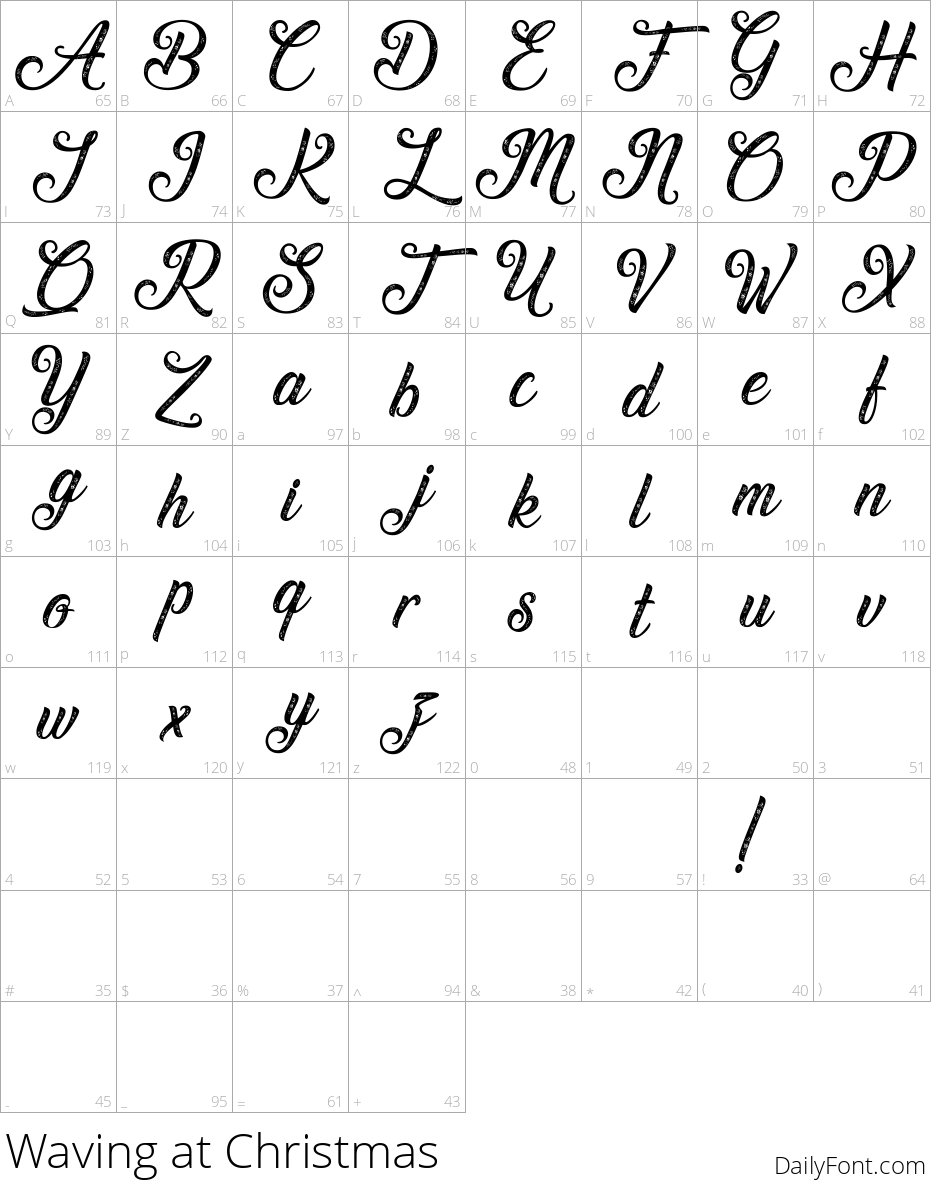
Waving at Christmas
Elegant, glittery cursive built for festive holiday cards
Waving at Christmas is a connected cursive script with tall, looping ascenders and a lightly textured, brushed-ink finish that keeps it from feeling too polished or digital. It reads as elegant and celebratory rather than casual.
It suits Christmas cards and invitations, gift packaging, holiday branding, and any design that wants a graceful, handwritten script for the season. Free to download for personal use.